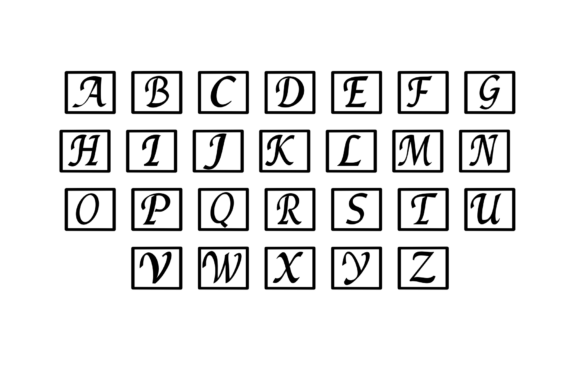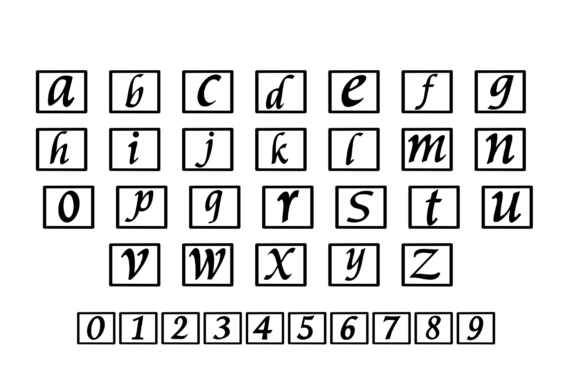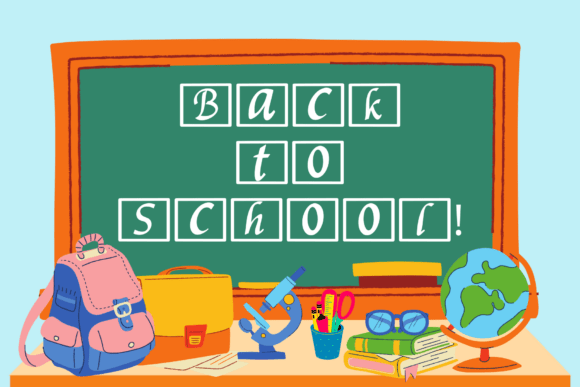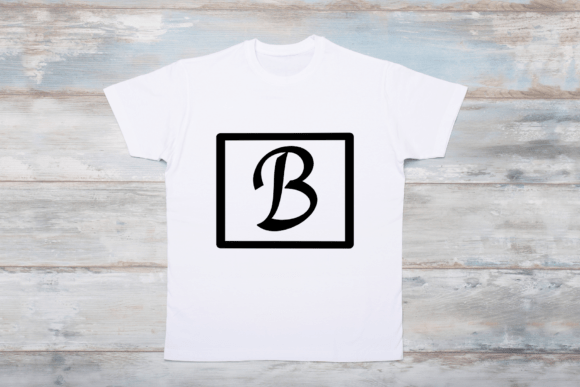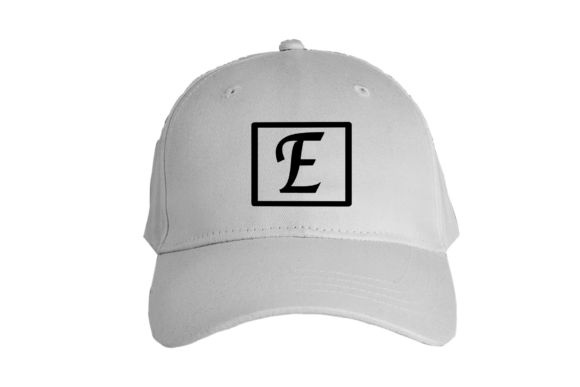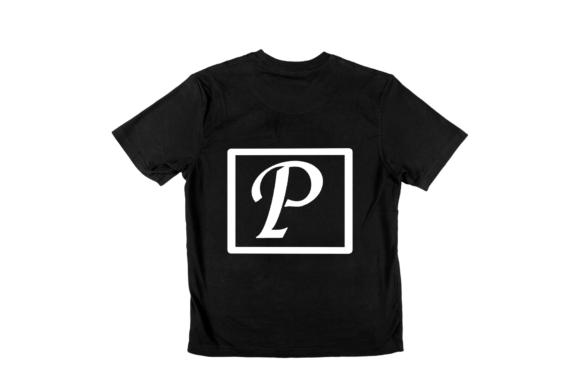
Introduction to School Serif Font Font
Fonts play a crucial role in design, and the School Serif Font font is a typeface that brings both character and versatility to any project. Whether you’re working on a branding project, a website, or a print design, the School Serif Font font offers a unique style that can elevate your work.
School Serif is a sweet and friendly serif font.
Key Features of School Serif Font Font
Why Choose School Serif Font Font?
The School Serif Font font is more than just a typeface – it’s a design tool that helps you communicate your message with style and clarity. Its unique character set and versatile design make it suitable for a wide range of applications, from elegant invitations to bold headlines.
With its carefully crafted letterforms and balanced proportions, the School Serif Font font ensures readability and visual appeal across all mediums.
What makes School Serif Font font special?
The School Serif Font font stands out with its unique design, exceptional readability, and versatility across various design applications.